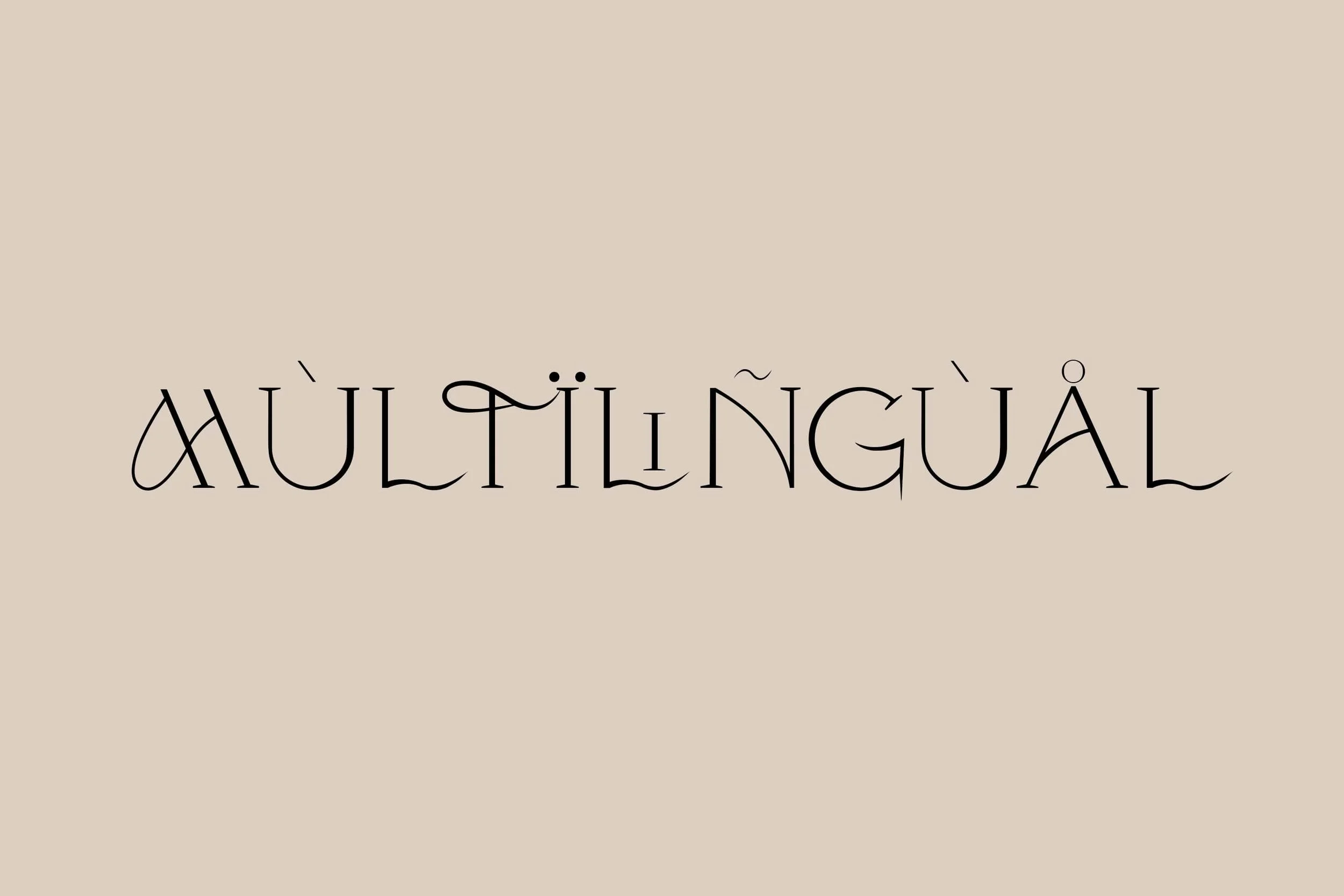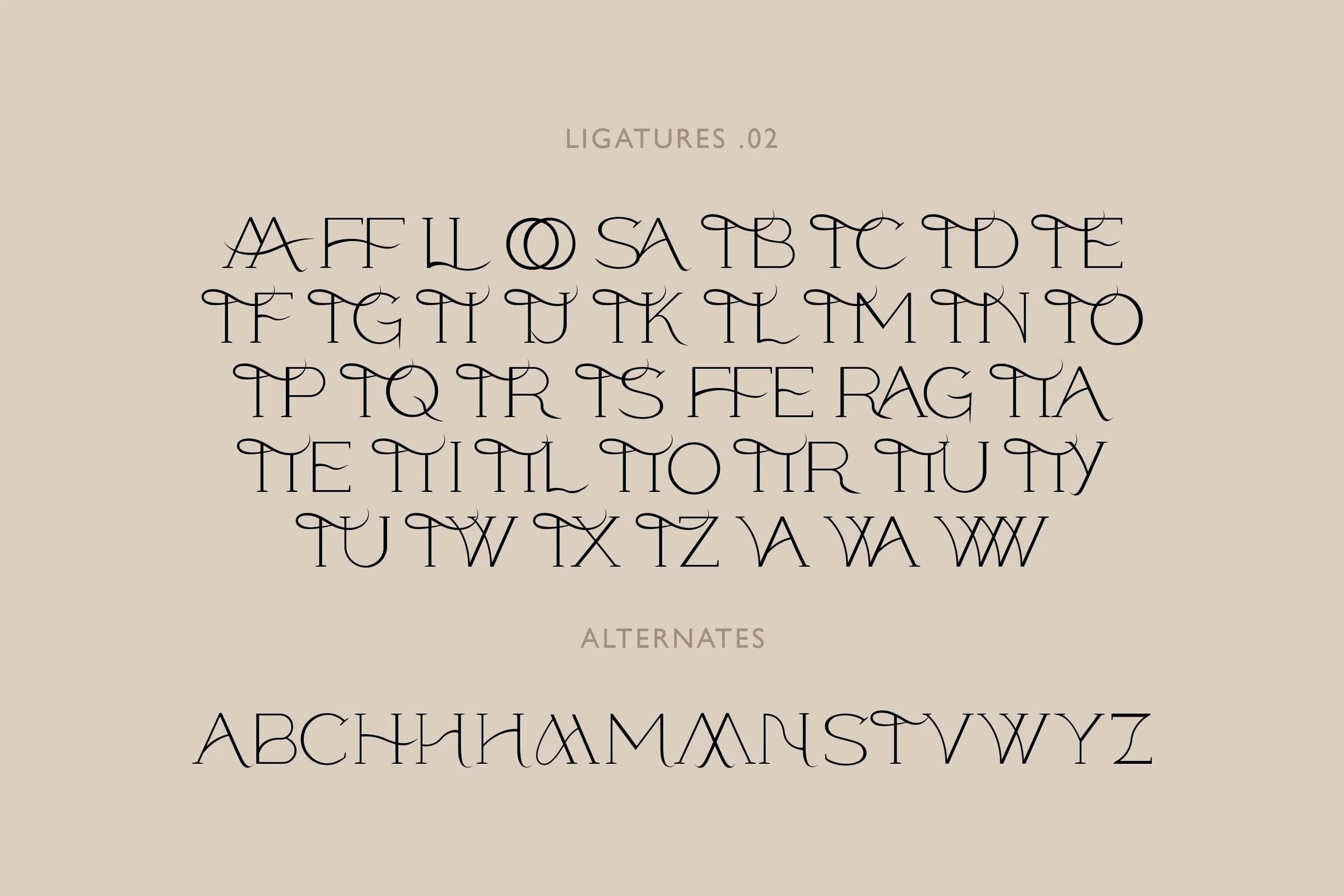
Step into the realm of sophisticated typeface design with Beatty – your go-to modern classic font. This all caps serif typeface is meticulously crafted with over 100 stylish ligatures to enrich your creations. It's a font that balances contemporary appeal with timeless design, making it an essential for any designer's toolkit.
- Contains: Uppercase letters, alternates, over 100 stylish ligatures, numerals, punctuation marks